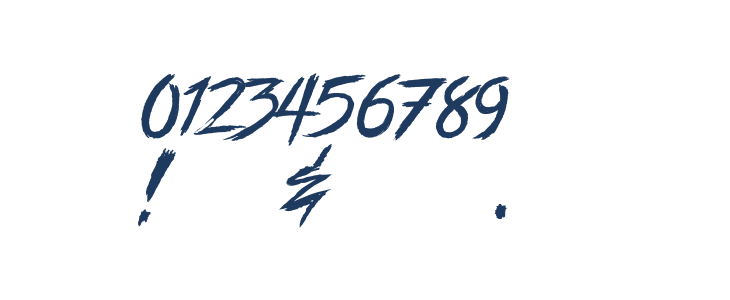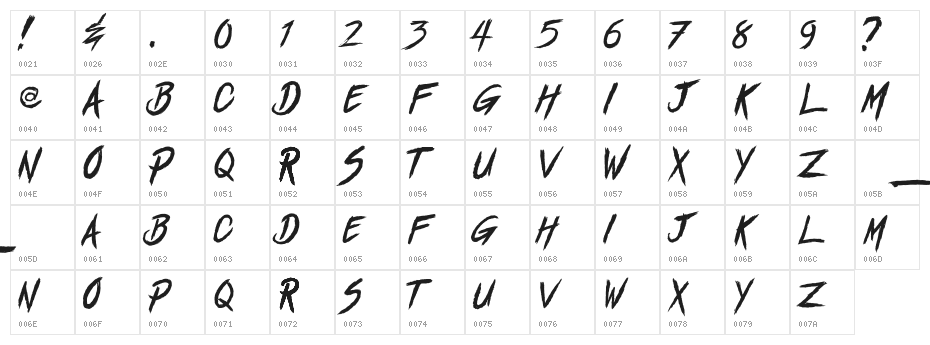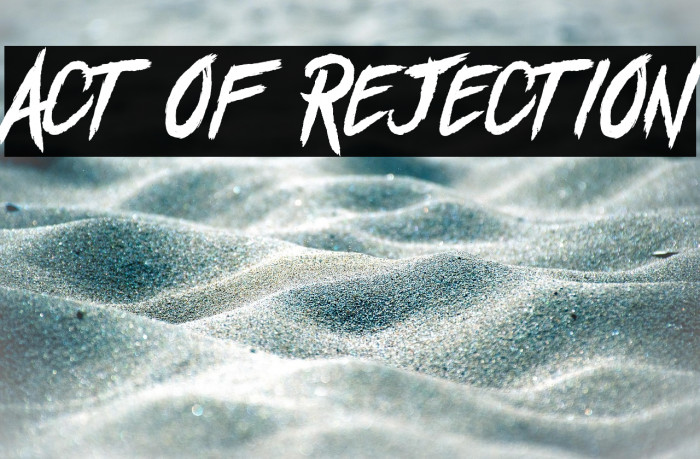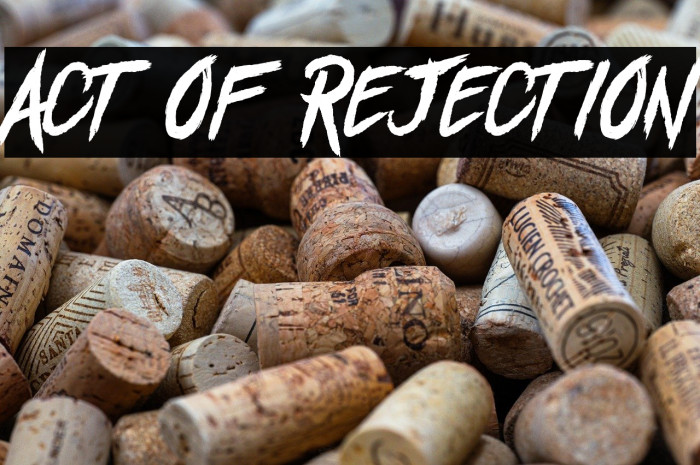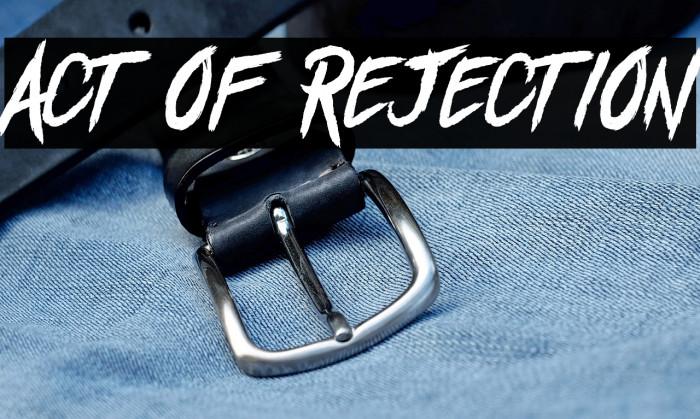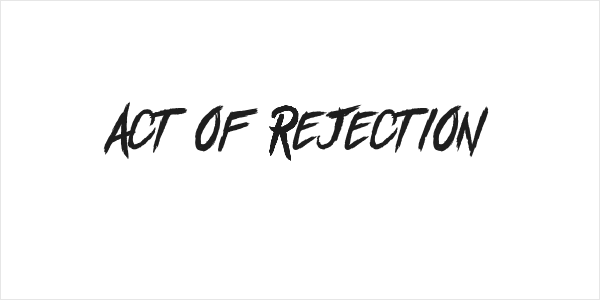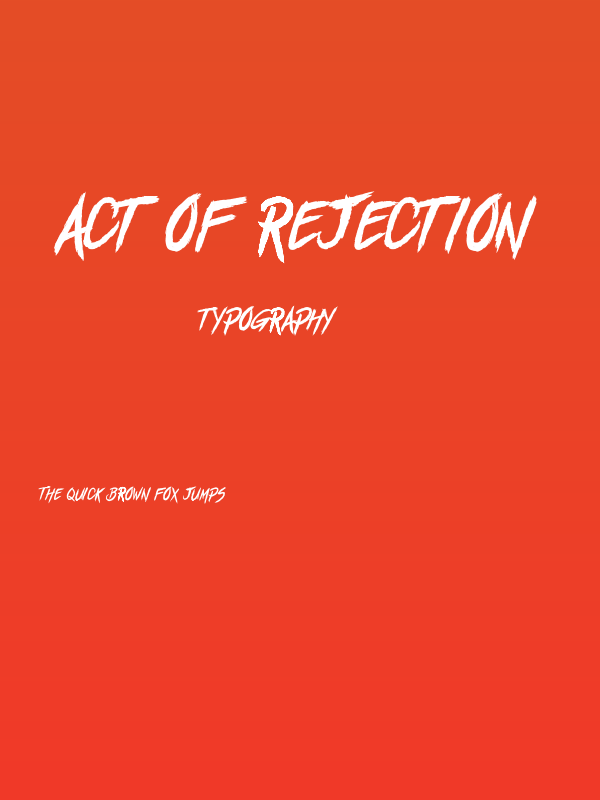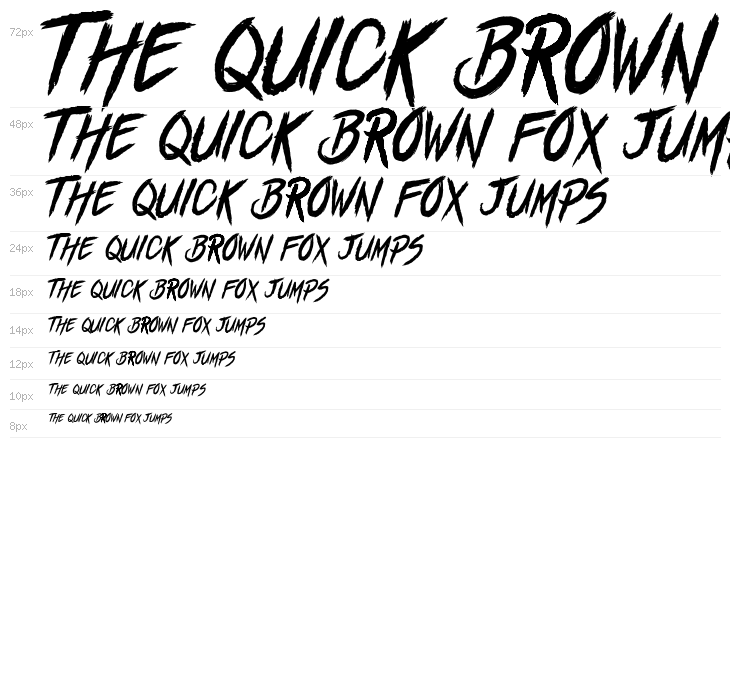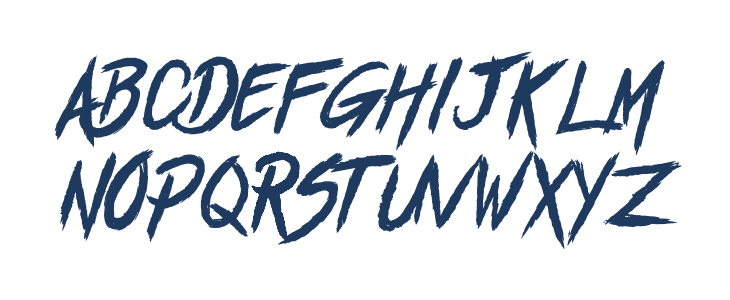
Act of Rejection Font
Act of Rejection Description
This font features a bold and dynamic brush script style, characterized by its sharp, angular strokes and energetic flair. The letters are designed with a sense of motion, giving them a rebellious and edgy appearance. The uppercase and lowercase letters maintain a consistent style, with exaggerated curves and pointed edges that create a sense of urgency and intensity. The numbers and special characters follow the same aesthetic, ensuring a cohesive look across all glyphs. This font is ideal for projects that require a strong, impactful visual presence.
| Overall Style | Modern, Edgy |
| Proposed Projects | Ideal for music album covers, event posters, streetwear branding, and dynamic logo designs. |